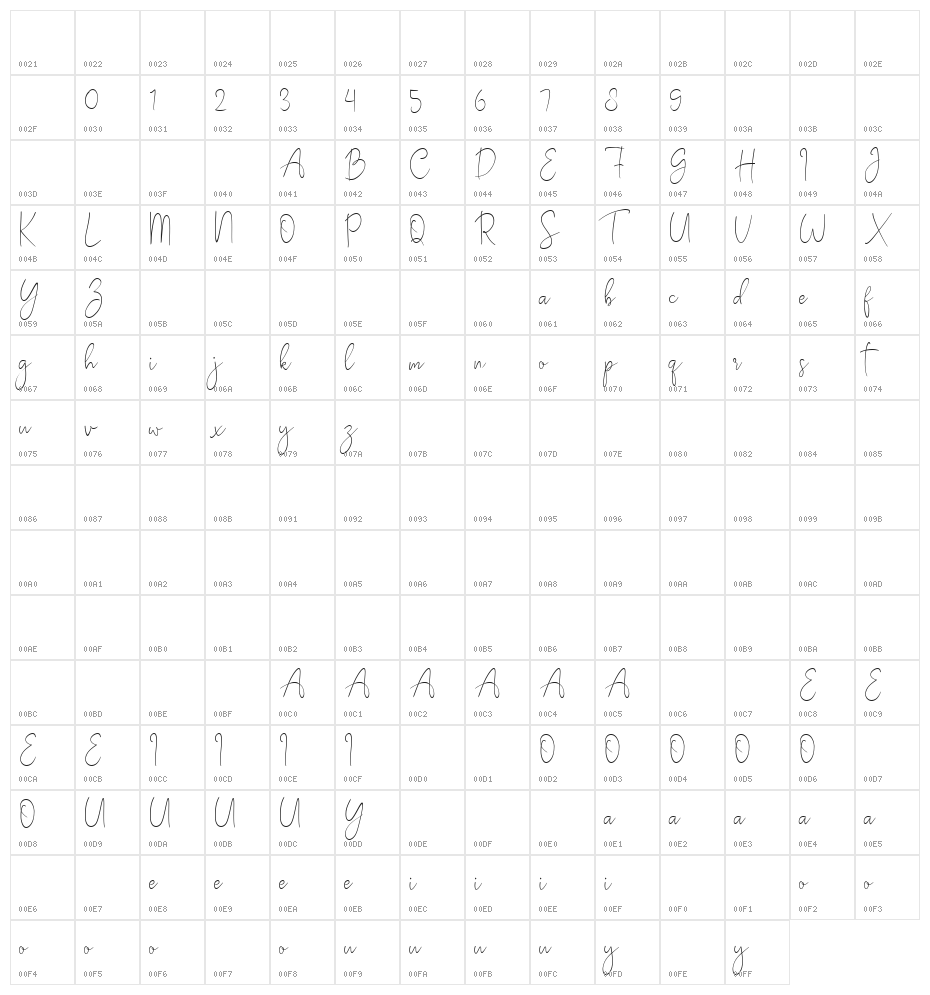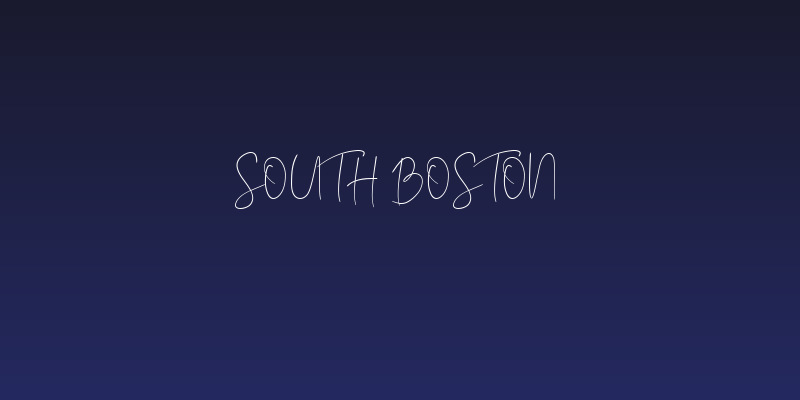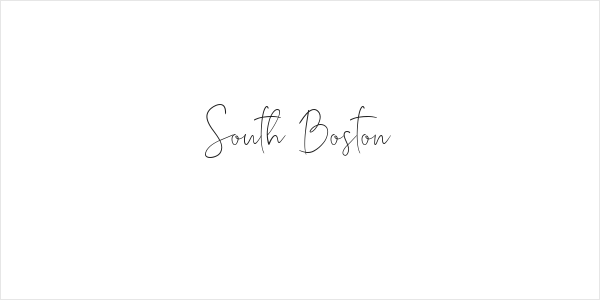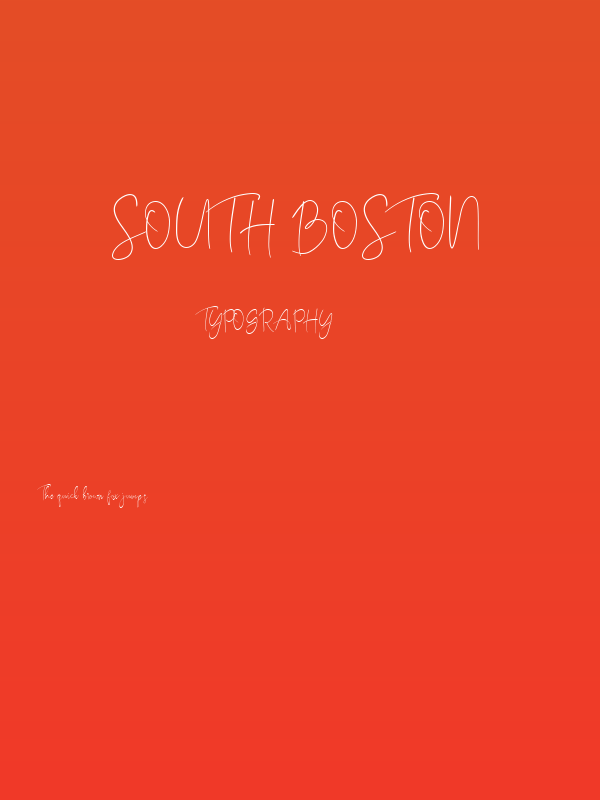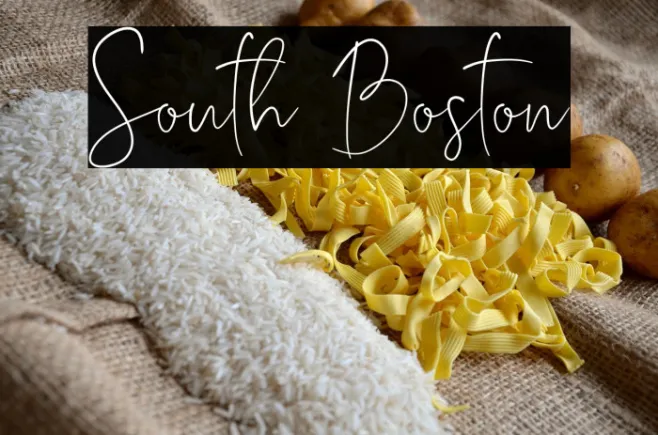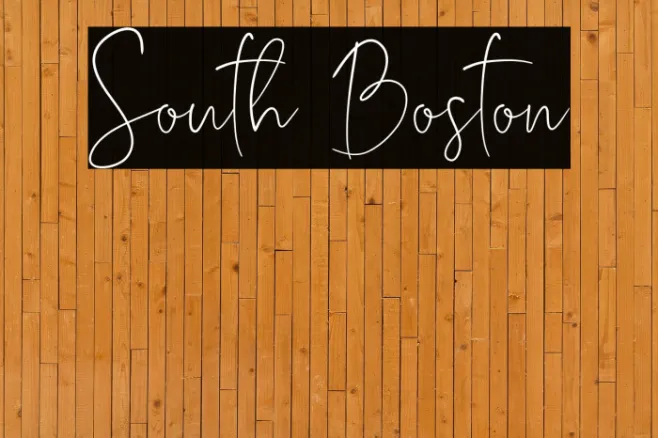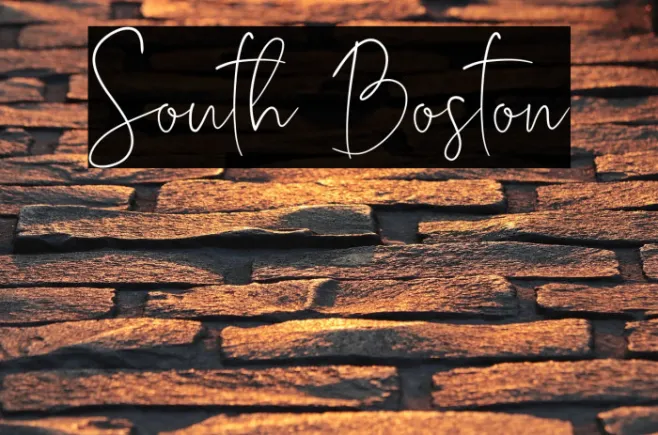
South Boston Font
South Boston Description
This font features a delicate and elegant script style with a handwritten appearance. The uppercase letters are tall and slender, with graceful curves and loops that give them a sophisticated flair. The lowercase letters maintain a consistent flow, with smooth connections between characters, enhancing the cursive aesthetic. The numerals are designed to match the overall style, featuring the same thin strokes and elegant curves. Special characters are seamlessly integrated, maintaining the font's cohesive look. The overall impression is one of elegance and refinement, suitable for projects that require a touch of class and sophistication.
| Overall Style | Elegant, Handwritten |